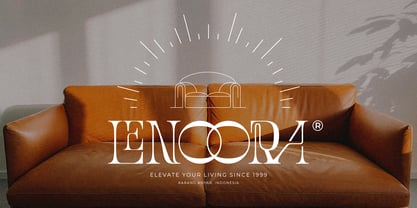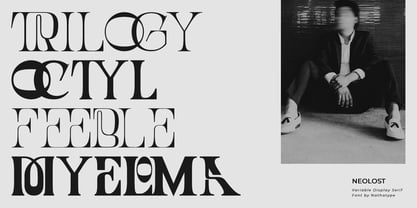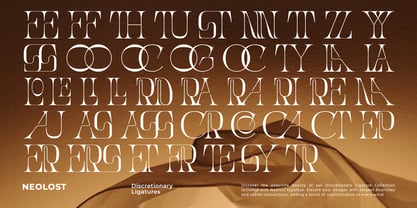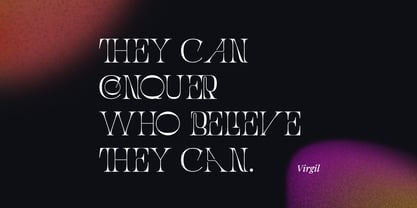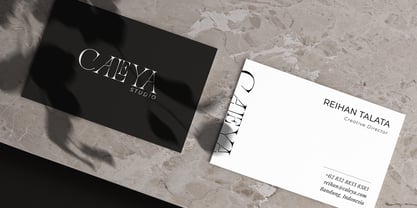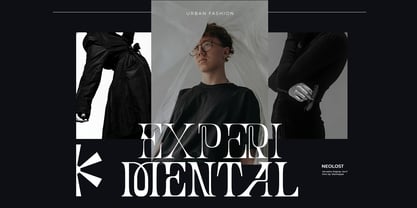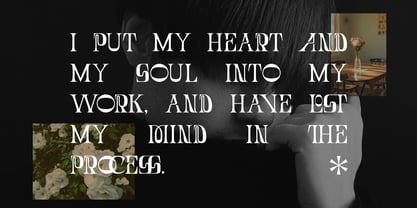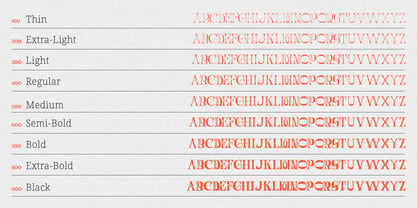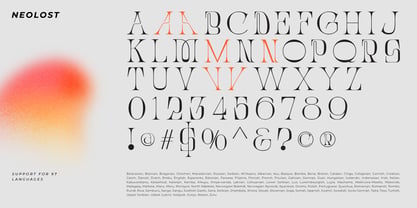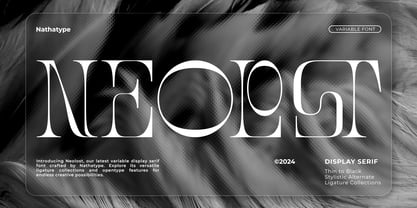
Neolost
La familia tipográfica Neolost fue diseñada por Donis Miftahudin y publicada por Nathatype. Neolost contiene 9 estilos y opciones de paquete familiar. Más información sobre esta familia
Neolost is a serif display font that undoubtedly commands attention with its 9 bold weight. This font shows a sense of drama because its uppercases design. Besides that, its clear contrast between thick and thin strokes adds a touch of dynamism to your text.
Each letter is designed with an uneven outline, giving the font a edgy looks unlike any traditional serif fonts. Despite its unconventional styling, Neolost maintains a sense of elegance too. In addition, enjoy the features here.
Features:
• Ligatures
• Multilingual Supports
• PUA Encoded
• Numerals and Punctuations
Neolost fits in headlines, logos, posters, flyers, branding materials, greeting cards, print media, editorial layouts, and many more designs. Find out more ways to use this font by taking a look at the font preview.